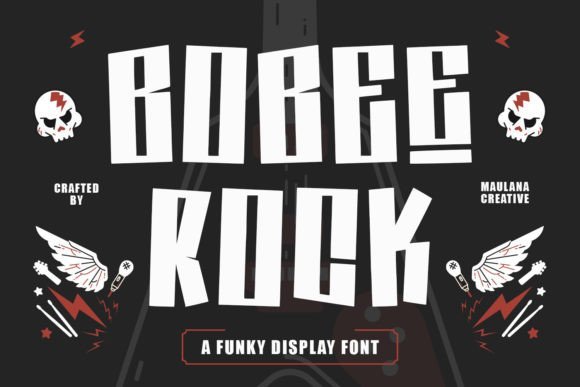
Unlock the Magic of Your Designs with Bobee Rock Font
Remember the moment when you stumbled upon that perfect font that elevated your design from ordinary to extraordinary? For many of us, it’s a moment that sparks creativity and sets our imagination on fire. If you’re a designer always on the lookout for that special something, you’re in for a treat. Say hello to Bobee Rock Font, a modern and whimsical display font that will transport your designs to a world of enchantment.
Bobee Rock Font is more than just a font – it’s an experience. With its unique style and character, it’s perfect for adding a touch of magic to your designs, whether it’s a logo, a poster, or a website. As a designer, you’ll appreciate the versatility of Bobee Rock Font, which can be used to create anything from playful and youthful designs to sophisticated and elegant ones.
Whether you’re a seasoned designer or just starting out, Bobee Rock Font is a valuable addition to your toolkit. Its modern yet whimsical style makes it an ideal choice for anyone looking to add a touch of creativity and personality to their designs.
Bobee Rock Font Key Features
- Font Style: A unique, bold, and modern sans-serif font with a rock-inspired aesthetic.
- Character Set: Includes a comprehensive character set, including uppercase and lowercase letters, numbers, and punctuation marks.
- Unique Characteristics: Features a distinctive, rugged texture and a bold, geometric design that makes it perfect for use in headlines, titles, and other display typography.
Bobee Rock Font Review
Overall, I think Bobee Rock Font is a solid addition to any designer’s toolkit. ✨ Its eclectic mix of modern and vintage elements makes it perfect for projects that need a bit of an edge.
- ✨ Unique blend of modern and vintage elements, adding a touch of sophistication to any design.
- ✨ Suitable for a wide range of projects, from logos to social media graphics and more.
- ✨ Easy to read and understand, even at small font sizes.
- ⚠️ Limited font size range; best suited for titles and headings.
- ⚠️ Not ideal for body text or large blocks of text, as it can become overwhelming.
- ⚠️ Some characters may not be compatible with certain platforms or devices.
While Bobee Rock Font has its limitations, I think it’s a great choice for designers who want to add a bit of personality to their work. Just be mindful of the font size range and character compatibility. With a little planning and creativity, Bobee Rock Font can be a real showstopper.
Getting the Most Out of Bobee Rock Font
To get the most out of Bobee Rock Font, use it for:
- Playful and fun designs
- Children’s books and educational materials
- Advertising and marketing campaigns
Some common use cases for Bobee Rock Font include:
- Creating a bold and eye-catching headline
- Adding a playful touch to a logo or brand identity
- Designing a children’s book or educational material